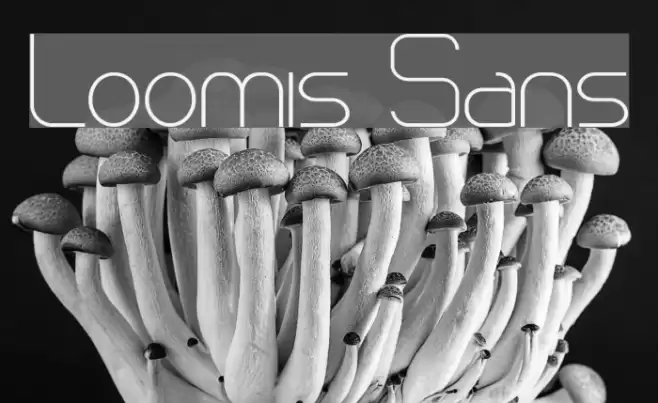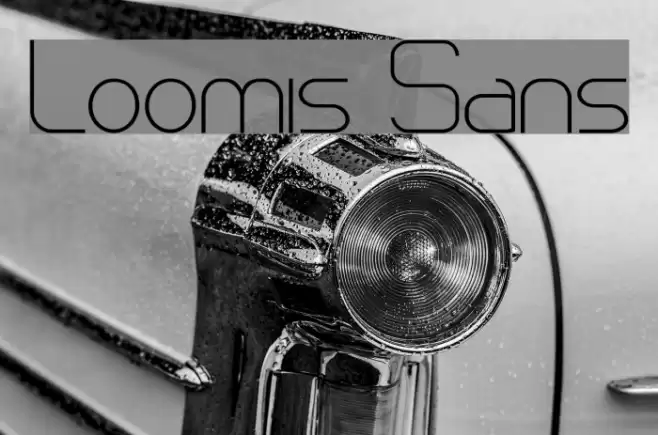
Loomis Sans Font
Loomis Sans Description
This font features a sleek and modern design with a geometric structure. The characters are composed of clean, straight lines and rounded corners, giving it a futuristic and minimalist appearance. The uppercase and lowercase letters maintain a consistent height, contributing to a uniform look. The numerals are equally balanced, with a clear distinction between each digit. Special characters are designed with the same attention to detail, ensuring they blend seamlessly with the rest of the typeface. The overall style is both contemporary and versatile, making it suitable for various design applications.
A sleek, modern font with geometric lines and rounded corners from Uncategorized fonts.
- Weight: Light